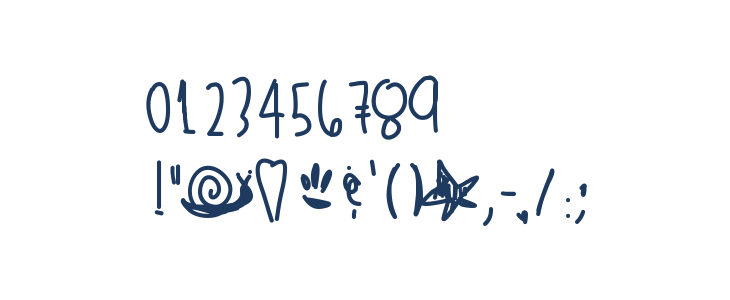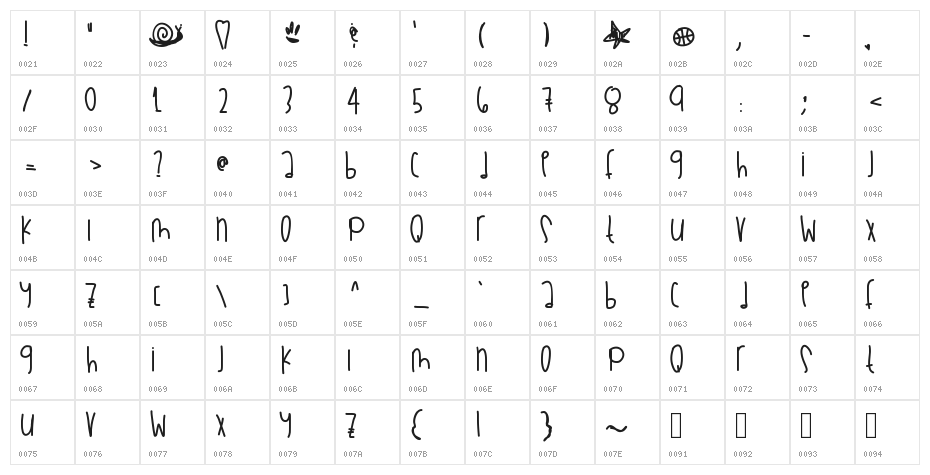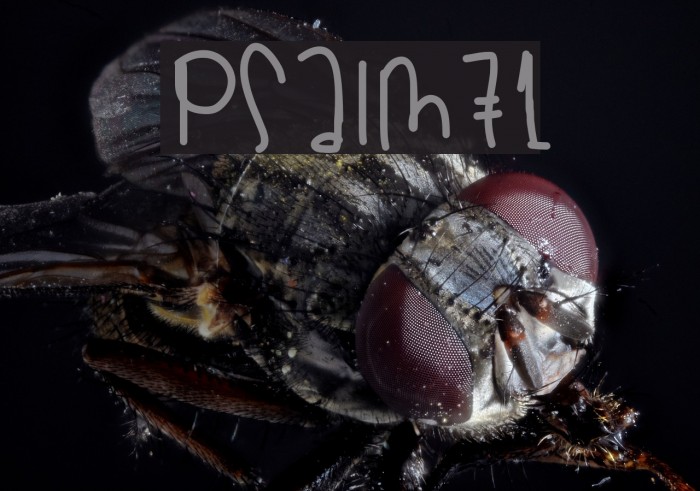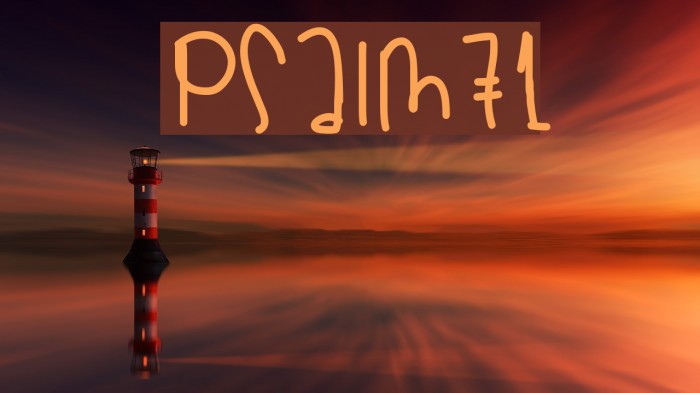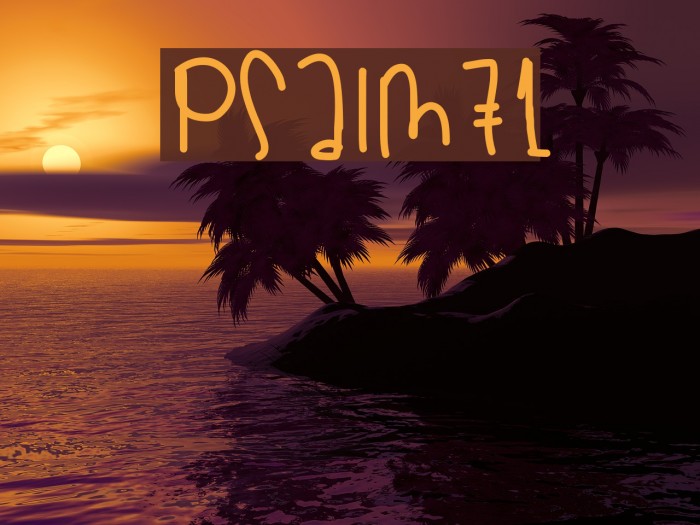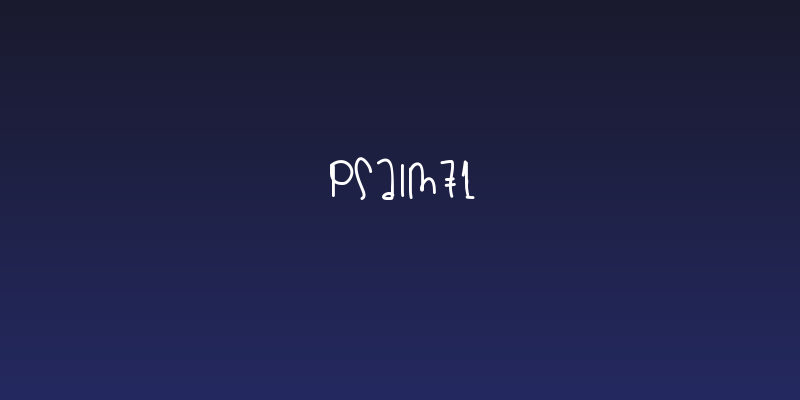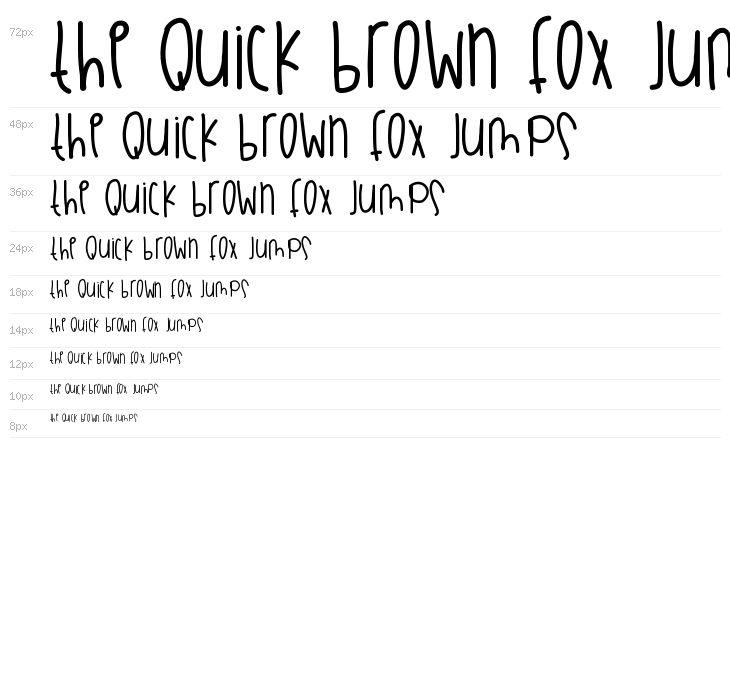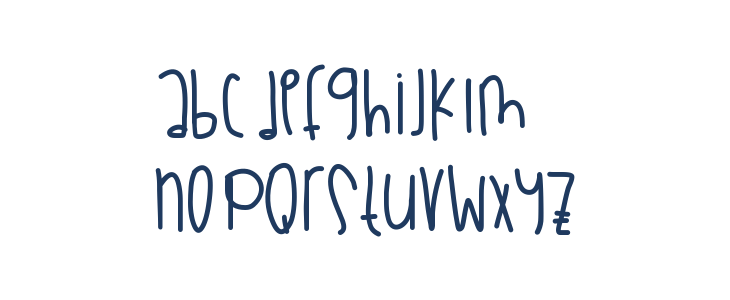
Psalm71 Font
This font features a playful and whimsical design with a handwritten style. The characters are tall and narrow, with a consistent stroke width that gives it a casual and friendly appearance. The uppercase and lowercase letters share a similar height, creating a uniform look. The numbers are rounded and maintain the same playful aesthetic. Special characters are creatively designed, adding to the font's unique charm. This font is ideal for projects that require a fun and informal touch, such as children's books, greeting cards, or playful branding.
| Width | Condensed |
| Use Case | Headlines, Logos, Informal Text |
| Proposed Projects | Ideal for children's books, greeting cards, playful branding, and informal invitations. |